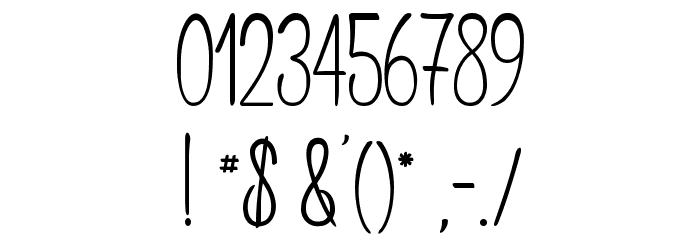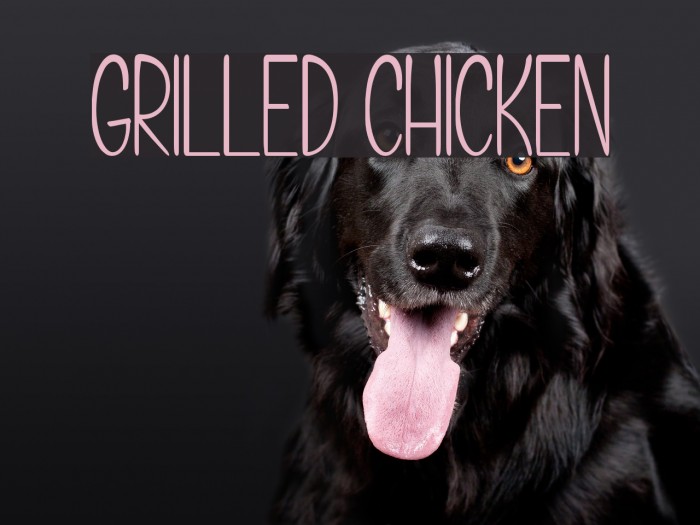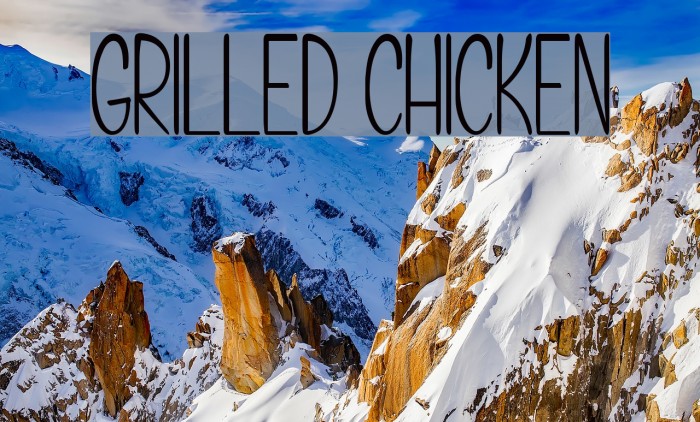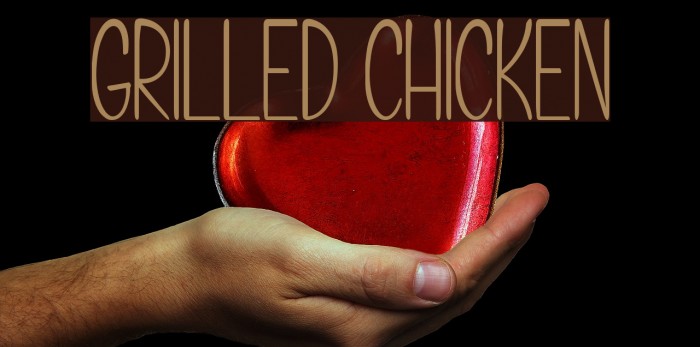
Grilled Chicken Font
This font features a playful and modern handwritten style with elongated and slightly irregular letterforms. The characters are tall and narrow, giving a sense of elegance and uniqueness. The strokes are consistent in thickness, providing a clean and uniform appearance. The font includes both uppercase and lowercase letters, numerals, and a variety of special characters, making it versatile for different design needs. Its quirky and informal style makes it suitable for creative projects that require a personal touch.
A playful, modern handwritten font with tall, narrow letterforms.
- Proposed Projects: Ideal for greeting cards, invitations, posters, and branding projects that require a personal and creative touch.
- Use Case: Headlines, Logos, Creative projects